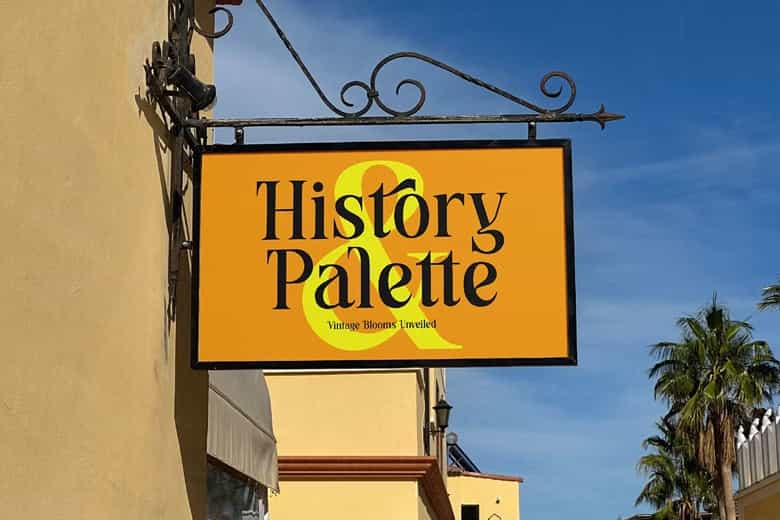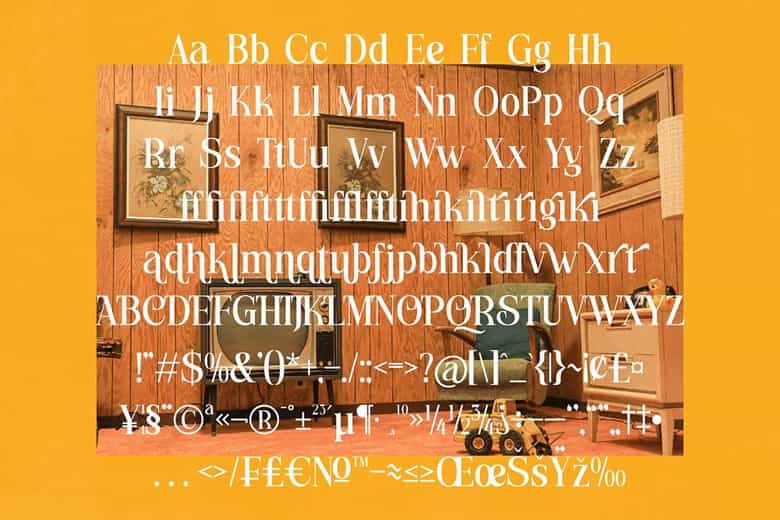
Describing Mysteris Vintage as a refined serif font, it can be safely considered both as a vintage typeface and a modern one with rather subtle macho touch added. The vigorous and unique serifs and engravings are antique as a classical touch, but the modern counterparts and perfect approbation of the forms guarantee application-oriented practicality and clarity. Old school and new school, Mysteris Vintage is ideal for luxury logo design, magazine and any other project that calls for a touch of class and sophistication.